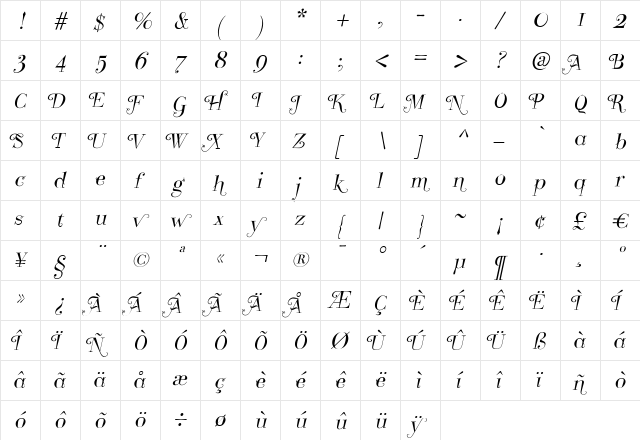
Take Five Italic Swashes Regular
Design Context for Take Five Italic Swashes Typeface
Take Five Italic Swashes flows with the natural rhythm of handwritten lettering, making it ideal for designs that call for warmth and personal expression.
Font Pairing: Combine Take Five Italic Swashes with a simple geometric sans for maximum contrast — the tension between flowing curves and clean structure is a classic typographic pairing.
Pro Tip: Use Take Five Italic Swashes for short runs of text — names, titles, or taglines. Extended body copy in script faces tires the eye quickly.